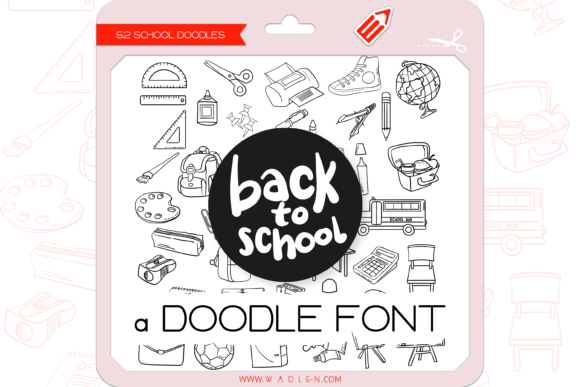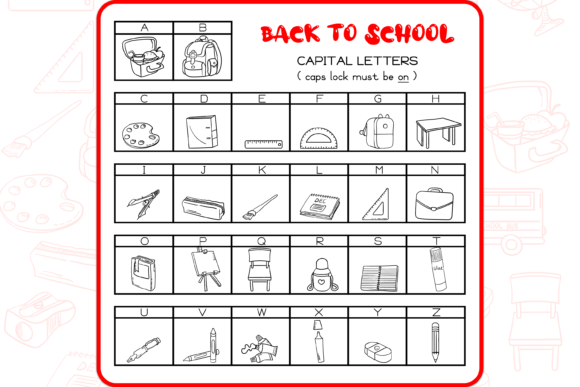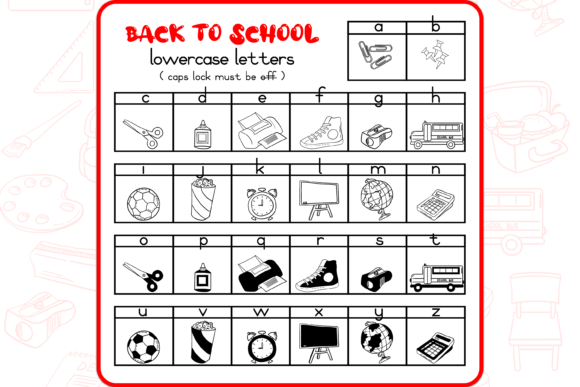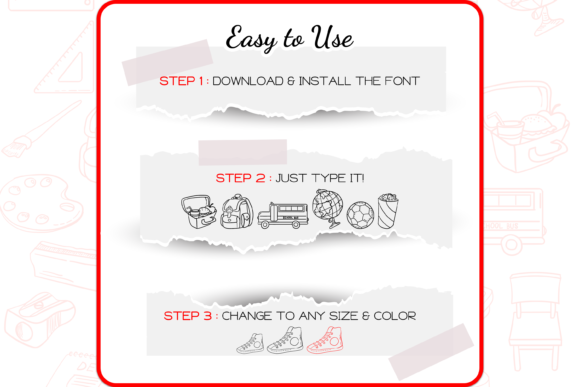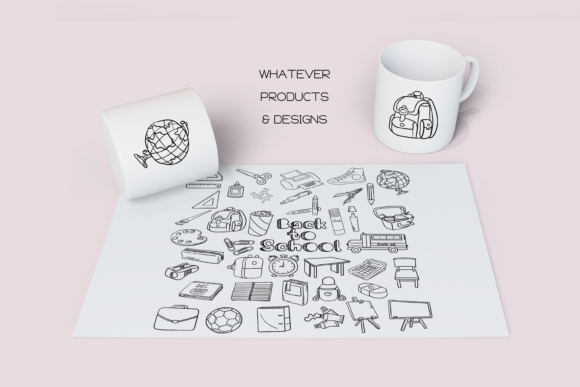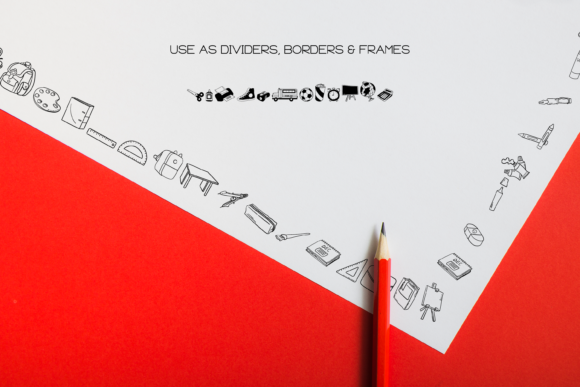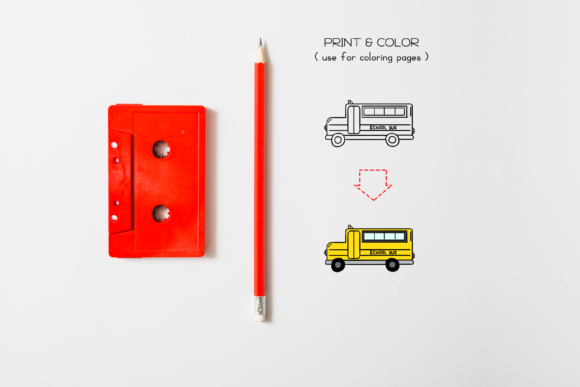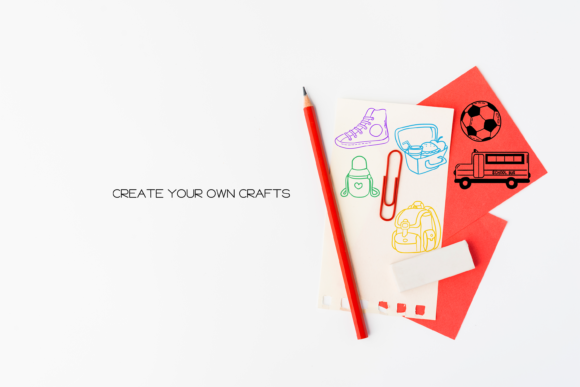
Back to School Font
About Back to School Font
1. Classroom Materials: Create visually engaging classroom materials using the Back to School font. Use the school-themed doodles as decorative elements, borders, or dividers on worksheets, flashcards, posters, and bulletin boards. The unique and interesting style of the font will make your materials visually appealing and capture students’ attention.
2. Lesson Plans and Presentations: Make your lesson plans and presentations more engaging with the Back to School font. Incorporate the school-related doodles as visual aids or icons to represent different topics or concepts. The font’s playful and educational elements will help illustrate your ideas and make the content more memorable for students.
3. Student Awards and Certificates: Design special student awards and certificates using the Back to School font. Use the doodles to create custom borders or embellishments that reflect academic achievements or positive behaviors. The unique and useful design of the font will make the awards stand out and become cherished keepsakes for students.
4. School Newsletters and Flyers: Make your school newsletters and flyers visually appealing with the Back to School font. Incorporate the doodles as eye-catching icons or decorative elements to highlight important information, events, or achievements. The font’s unique style will make your communications more memorable and engaging for parents and students.
5. Digital Learning Materials: Enhance your digital learning materials with the Back to School font. Use the school-themed doodles as interactive elements, buttons, or icons in online presentations, e-learning modules, or educational apps. The font’s versatility and usefulness will bring a playful and educational touch to your digital content.
6. Scrapbooking and Memory Books: Create personalized scrapbooks or memory books using the Back to School font. Use the doodles as decorative elements or borders to highlight school memories, achievements, or special moments. The font’s unique design will add a creative and nostalgic touch to your keepsake projects.